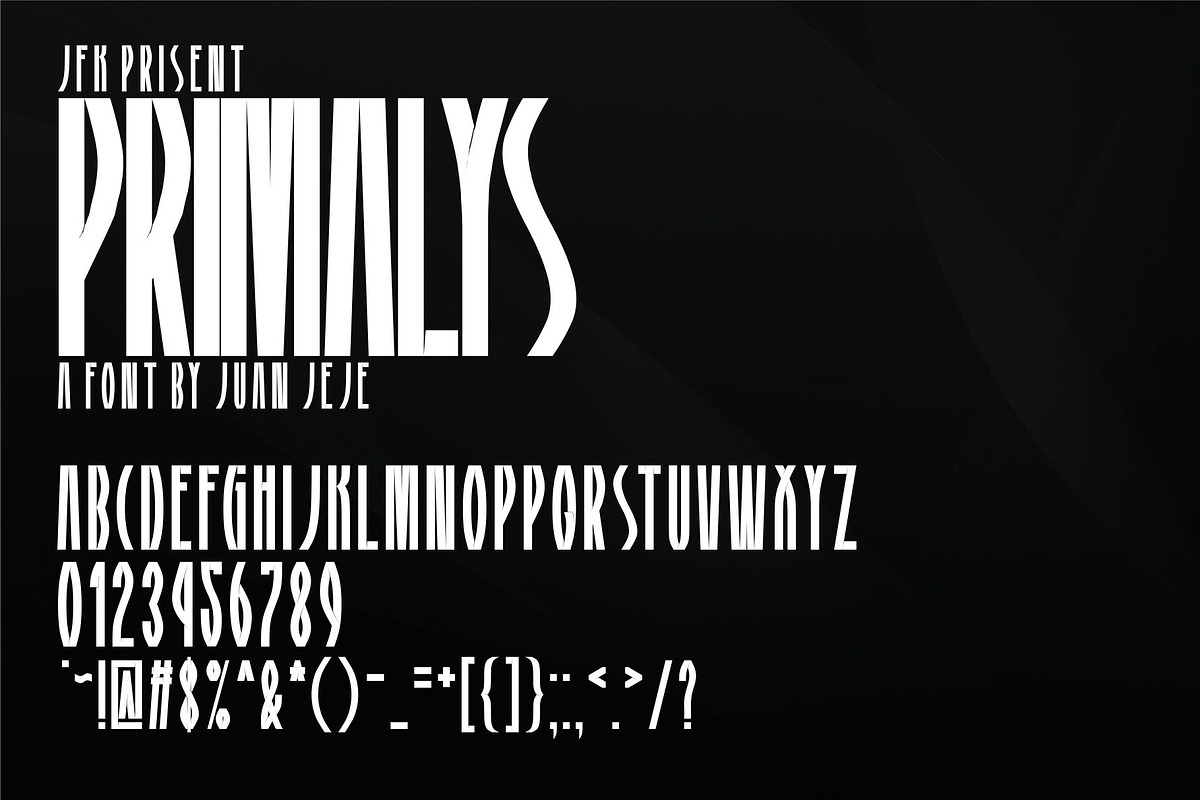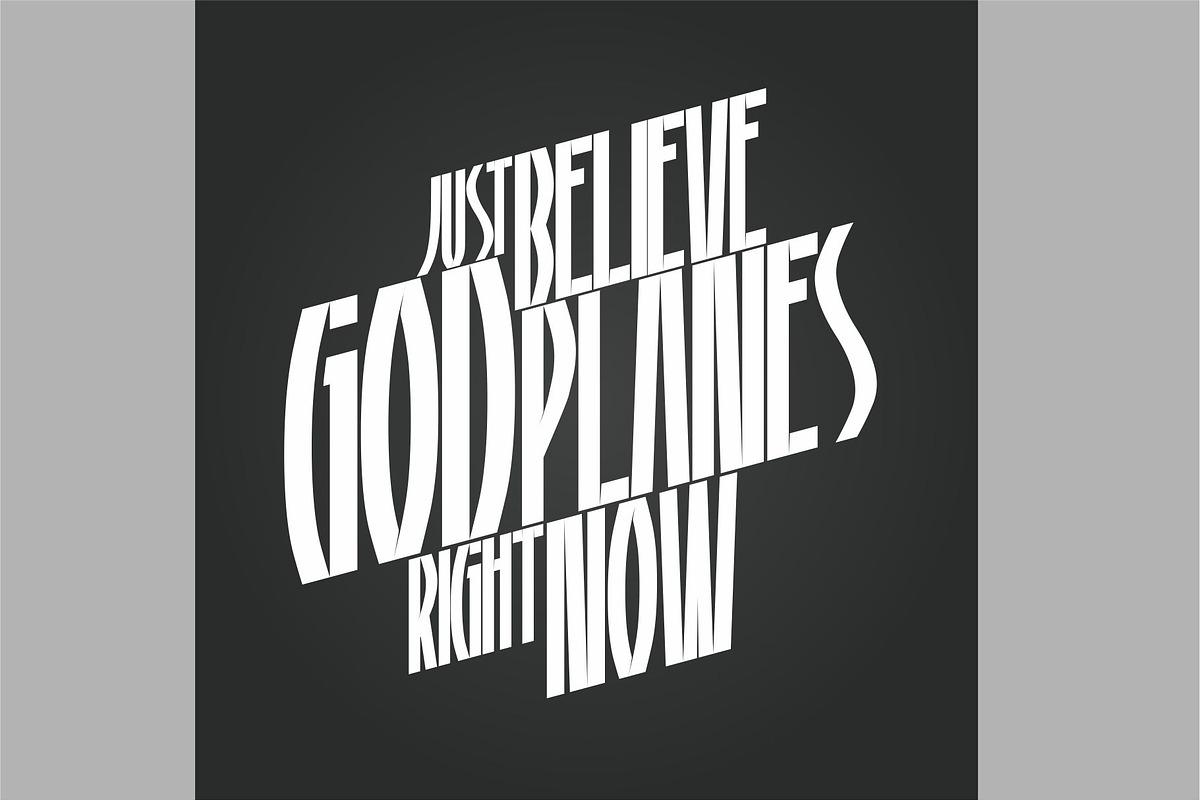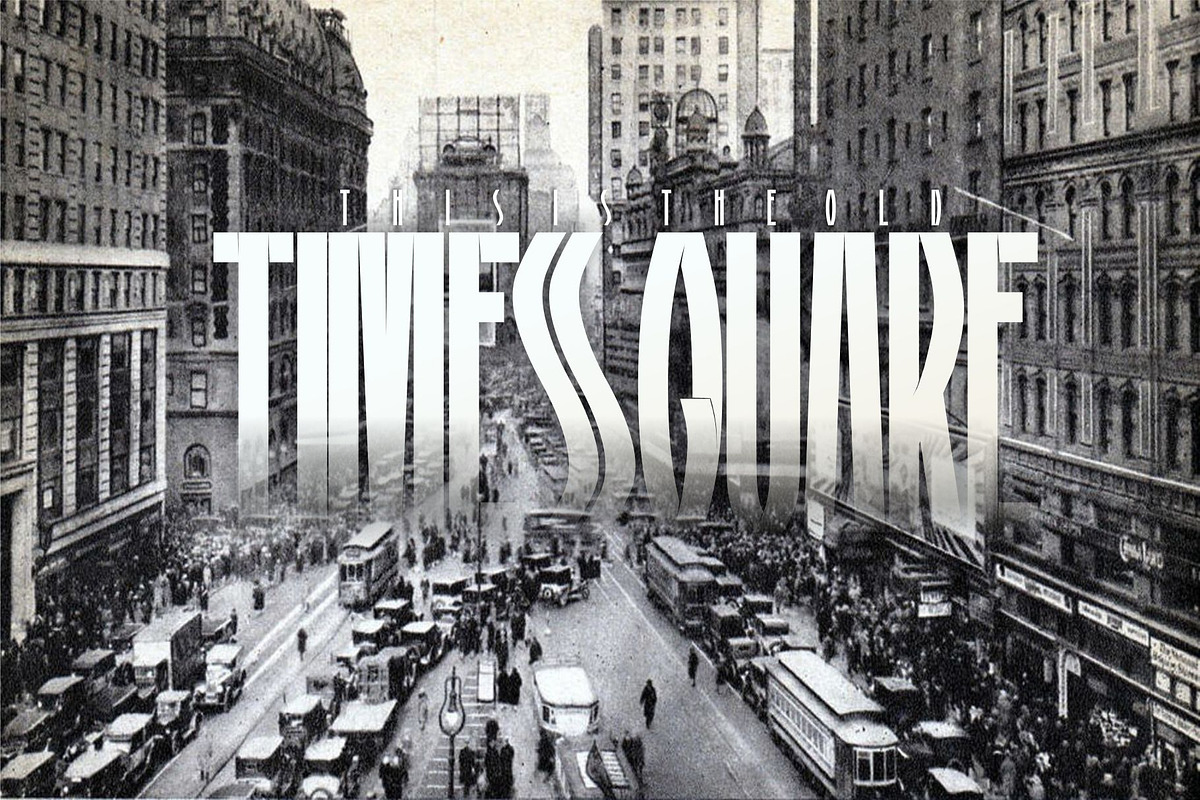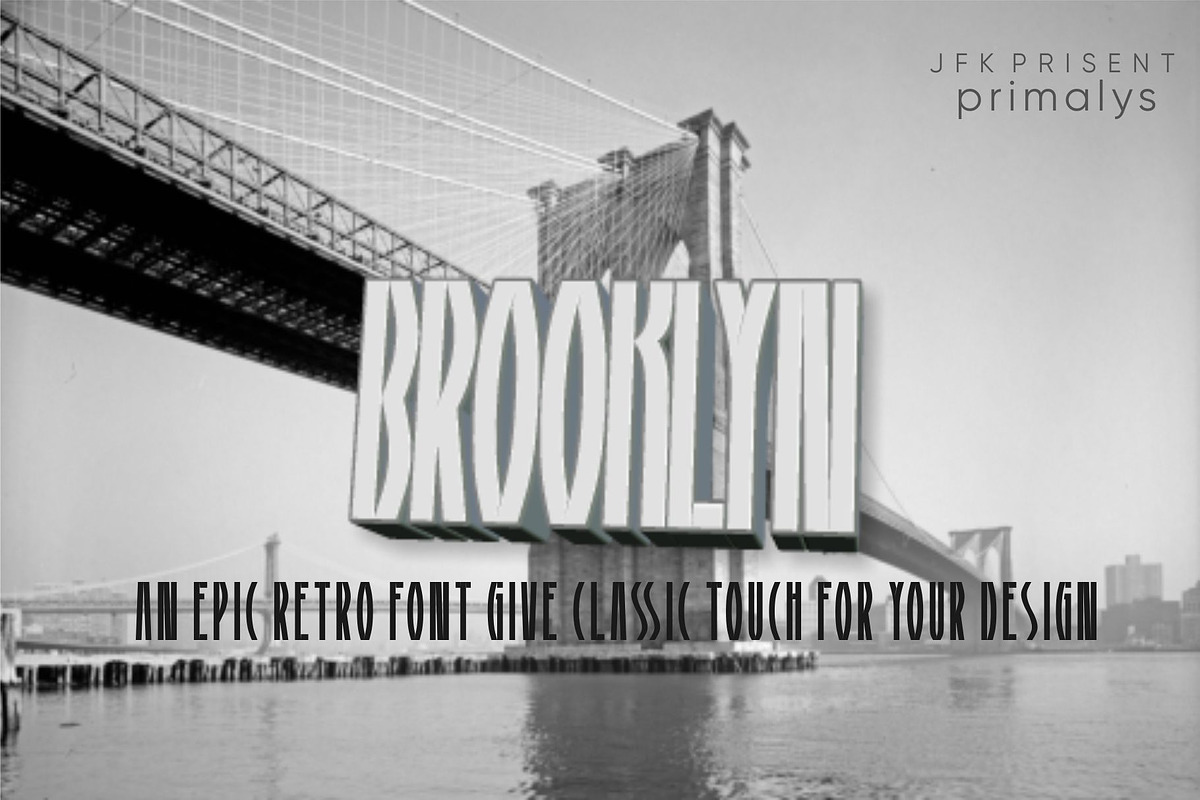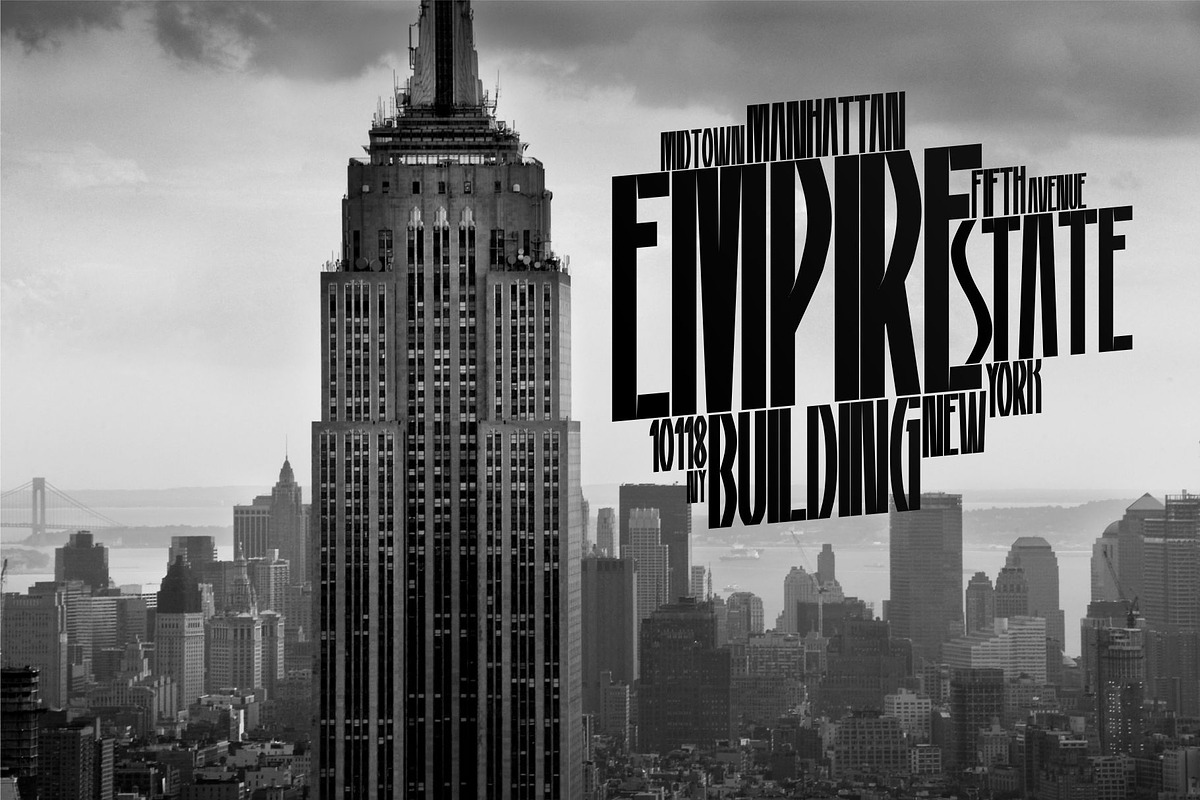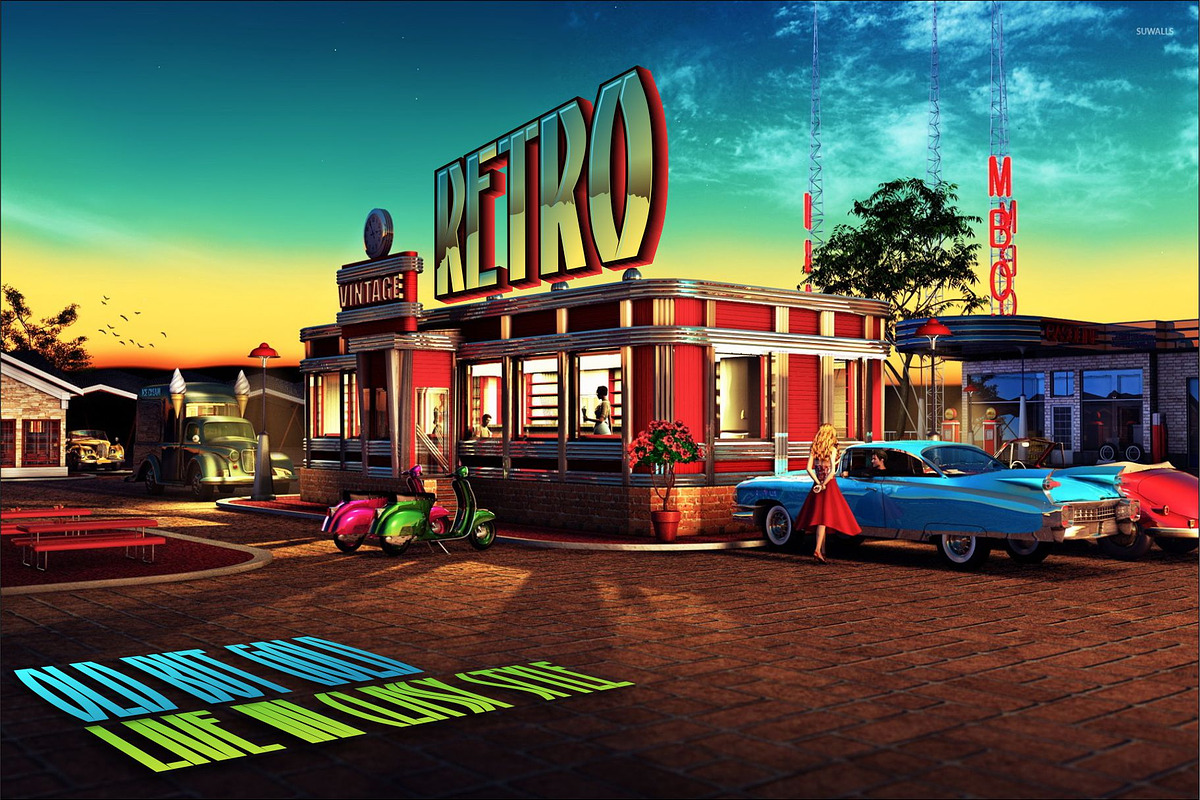
Primalys | Tall Font
PRIMALYS give classic touch for your design
Primalys | Tall Font by JFK Juan Jeje fits naturally into Branding, posters, packaging, typography.